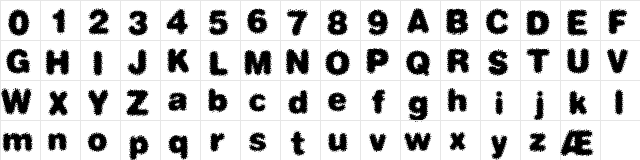
Dephunked BRK Regular
| Foundry | ƎIGMA FONTS |
| Designer | ƎIGMA FONTS - Brian Kent |
Design Context for Dephunked BRK Typeface
Dephunked BRK is a composed and adaptable typeface that performs quietly and consistently across a wide range of design contexts.